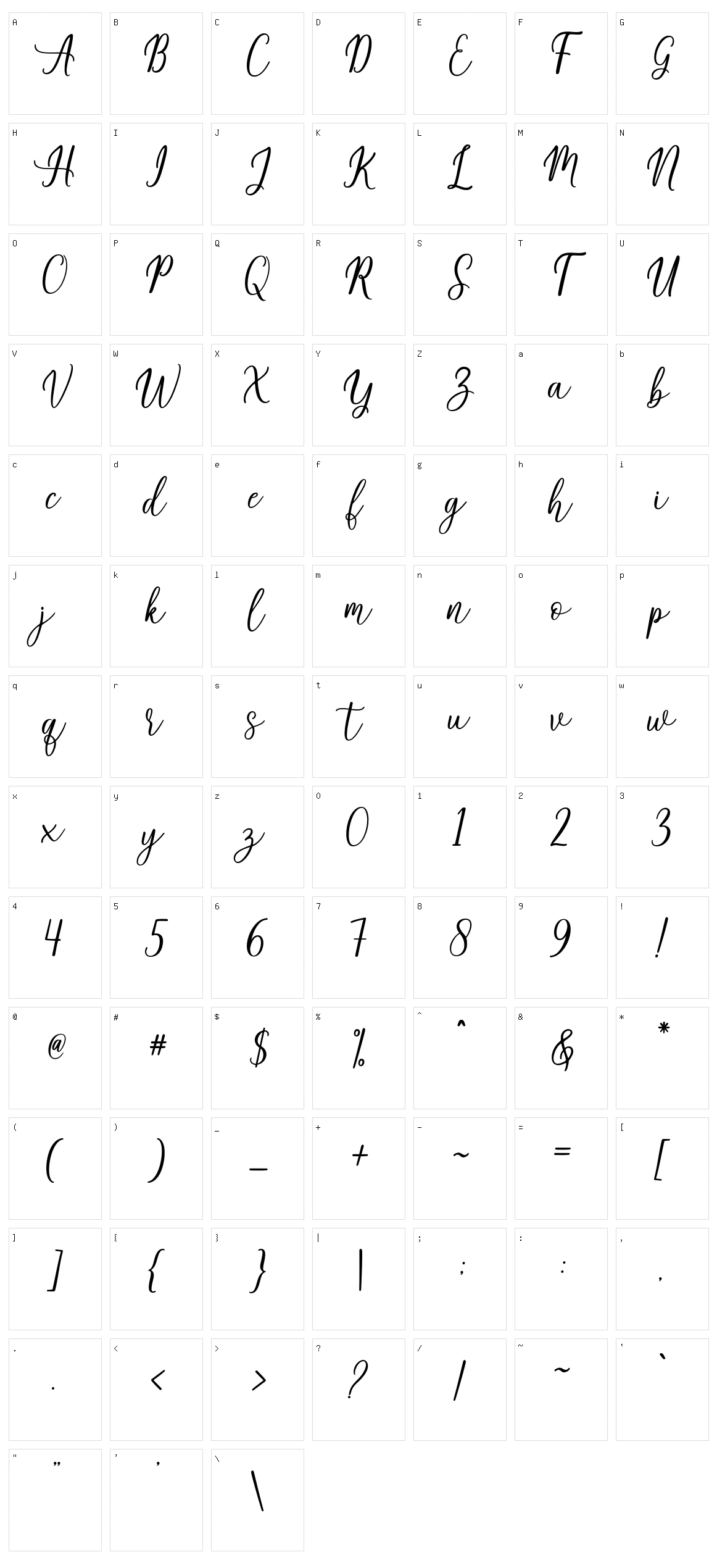
The free font Mobaster is carefully designed by Mega Type, showcasing a thoughtful balance of creativity and usability and falls under the Script font style. When you download the ZIP file, it contains only 80.41 KB of font files, making it lightweight and quick to download. Please review the license details below to understand permitted usage and distribution rights. If license information is not available, we recommend using this font for personal projects only or contacting the author directly for commercial usage permissions.